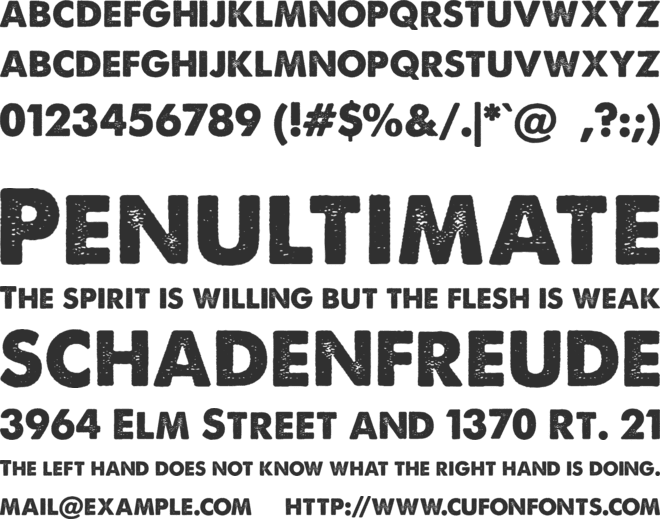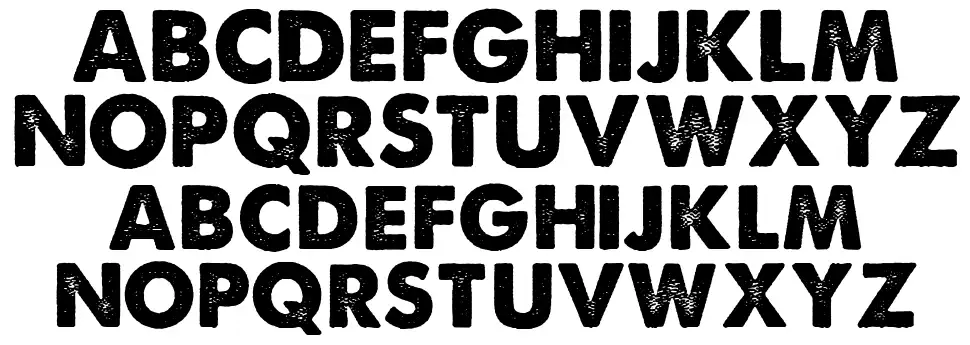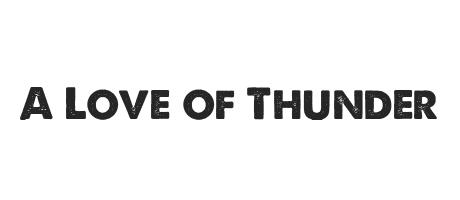
Similarly stressed but with an alternate style, for some mixed graphics.
A love of thunder font cyrillic. Furthermore, it has 114 number of characters with various international languages support. About the font a love of thunder. Dowonload this fonts for graphic design , web fonts
A love of thunder, regular. The font a love of thunder is also perfect for branding projects, homeware designs, product. A love of thunder.ttf ;
You can find more eroded fonts. A love of thunder is a trademark of s. You can use the a love of thunder to create interesting designs, covers, shop and store name and logos.
This font is in the regular style. A love of thunder ; A love of thunder ;
A love of thunder font family. This single style has contained 110 number of glyphs including uppercase, lowercase, currency signs, and so on. This font also belongs to the eroded font category.
This font come in ttf format and support 118 glyphs. This fine quality typeface has come into a single regular style along with truetype features. After generating your fancy text symbols, you can copy and paste the fonts.